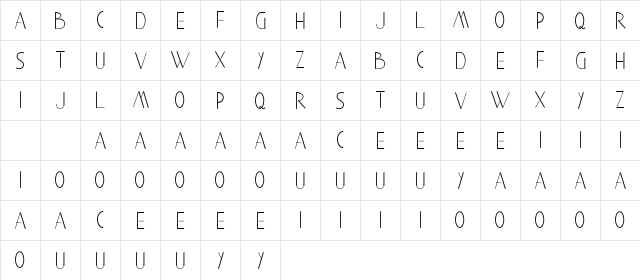
Aghnestademo Sans
| Style | Sans |
| Foundry | Edric Studio |
| Designer | Saila nurissalma |
Design Context for Aghnestademo Typeface
Aghnestademo takes a measured approach to typography — its balanced proportions and neutral character make it a reliable workhorse for both digital and print work.